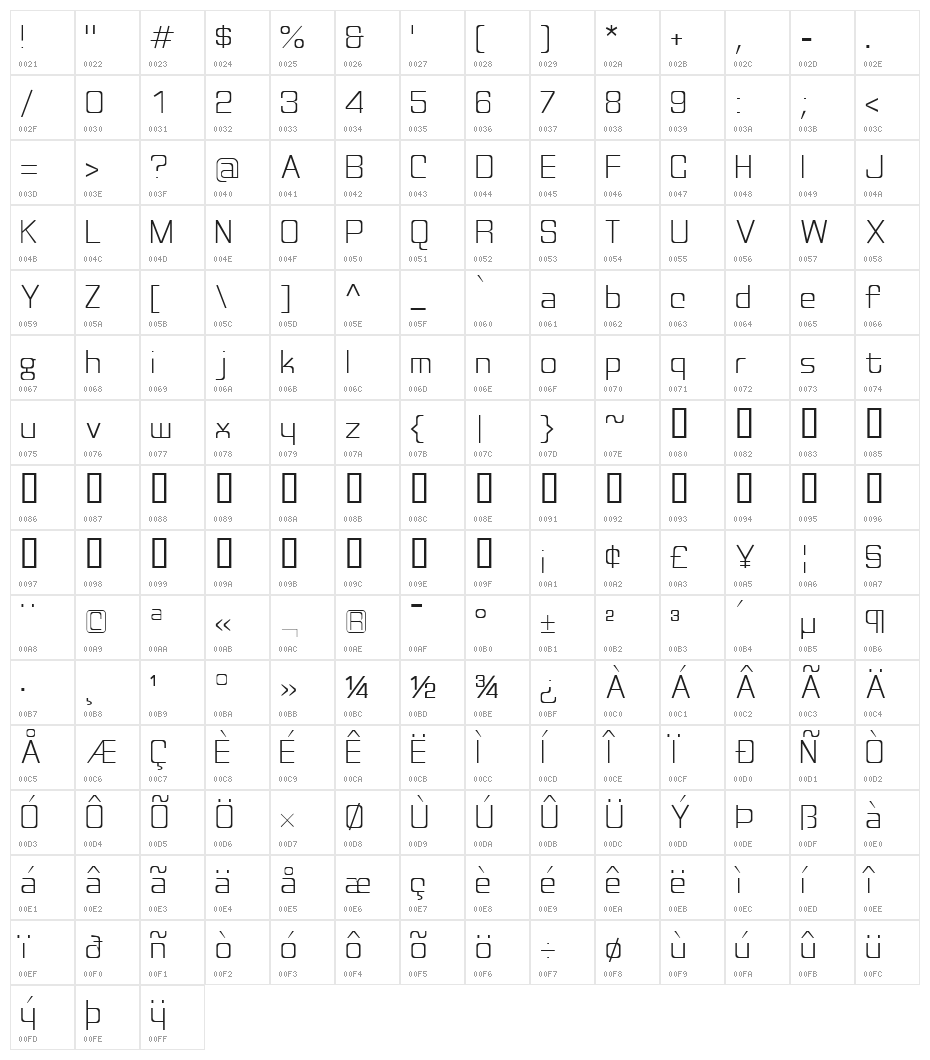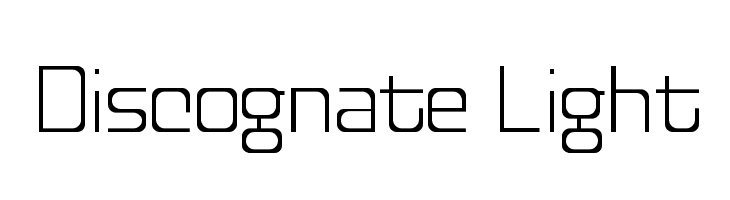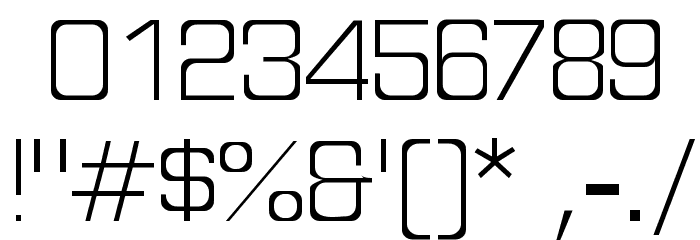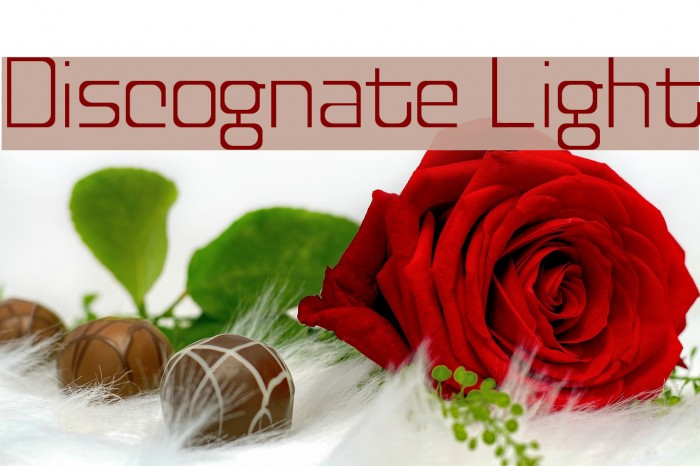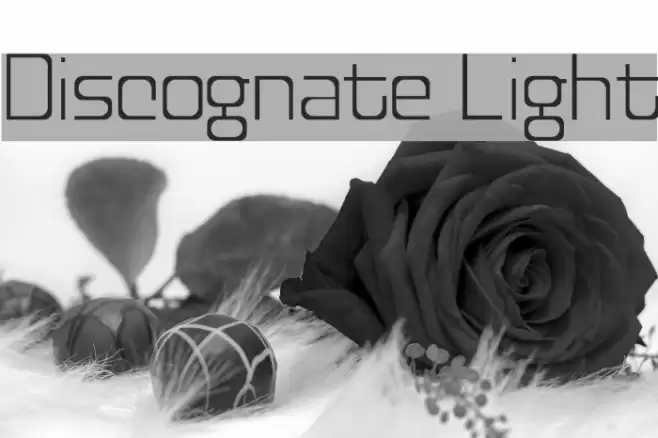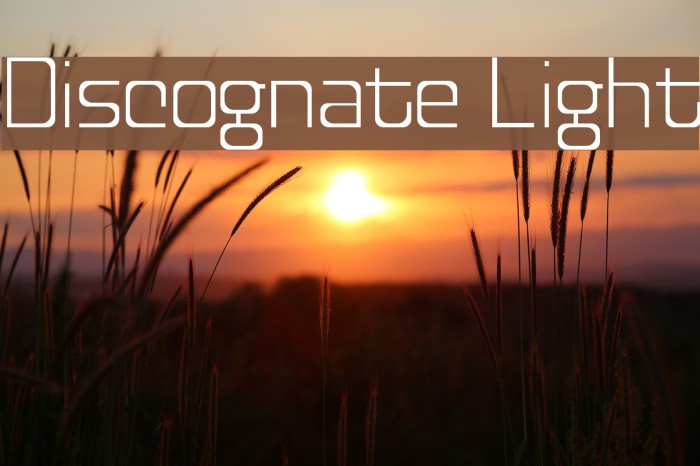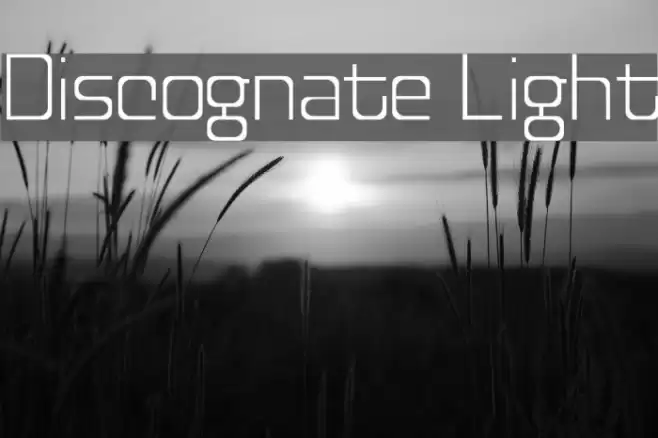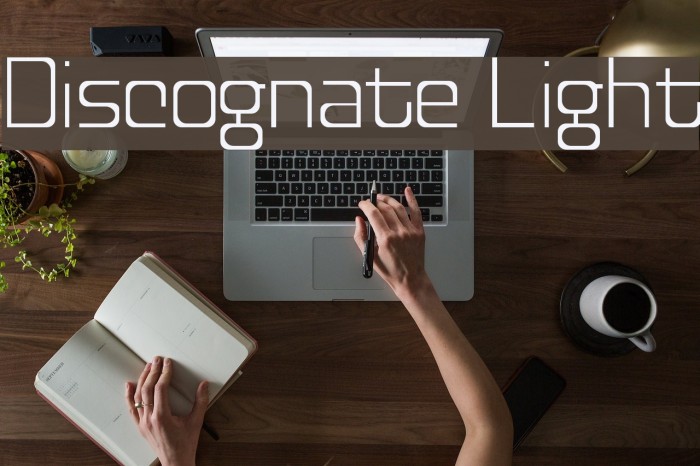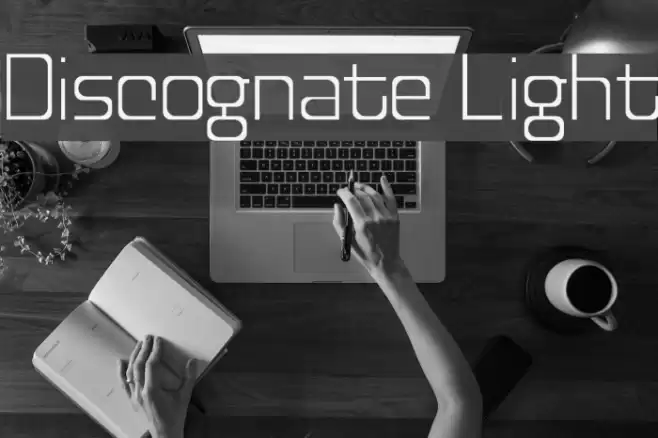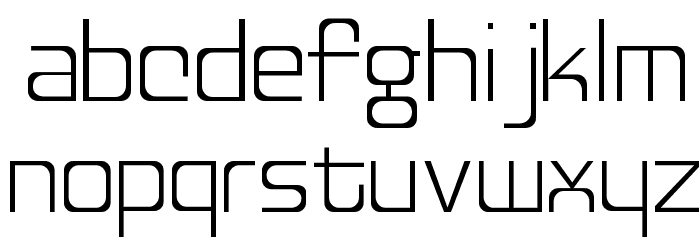
Discognate Light Font
| Caso d'uso | Headlines, Logos, Digital Interfaces |
| Progetti proposti | Ideal for tech branding, digital interfaces, modern posters, and minimalist design projects. |